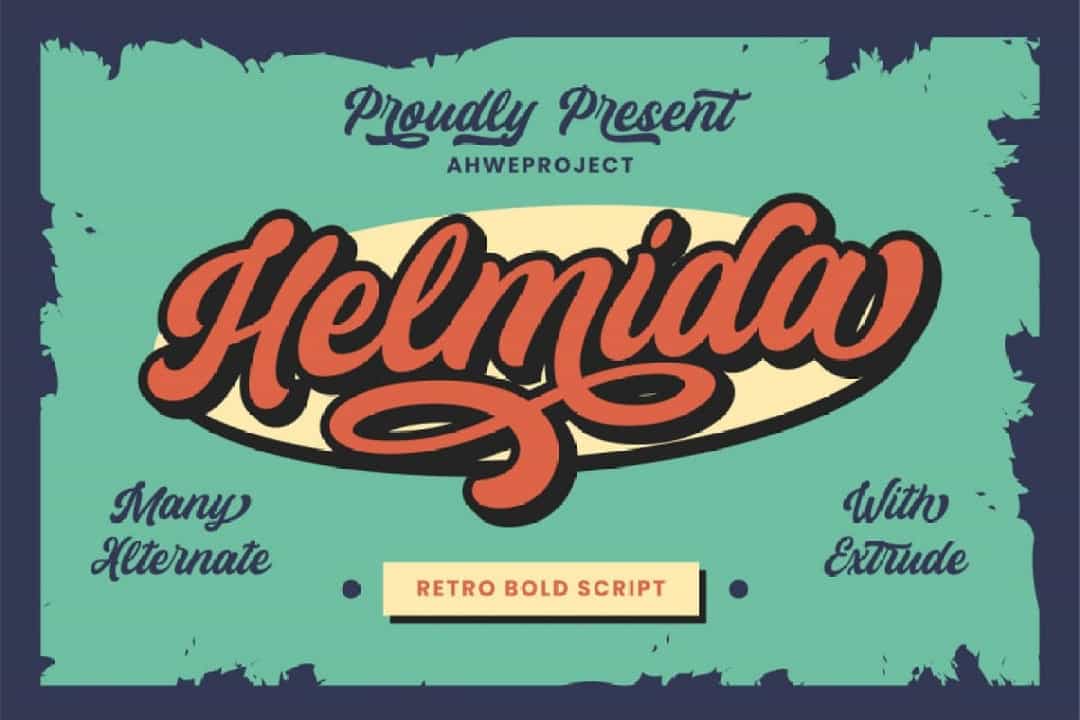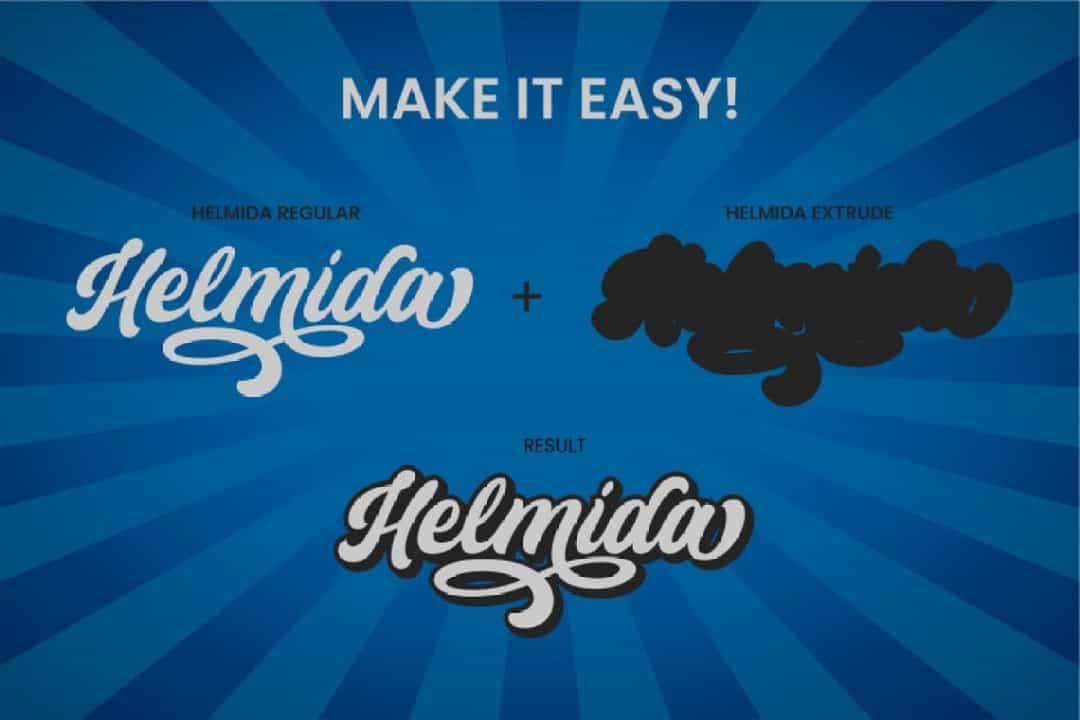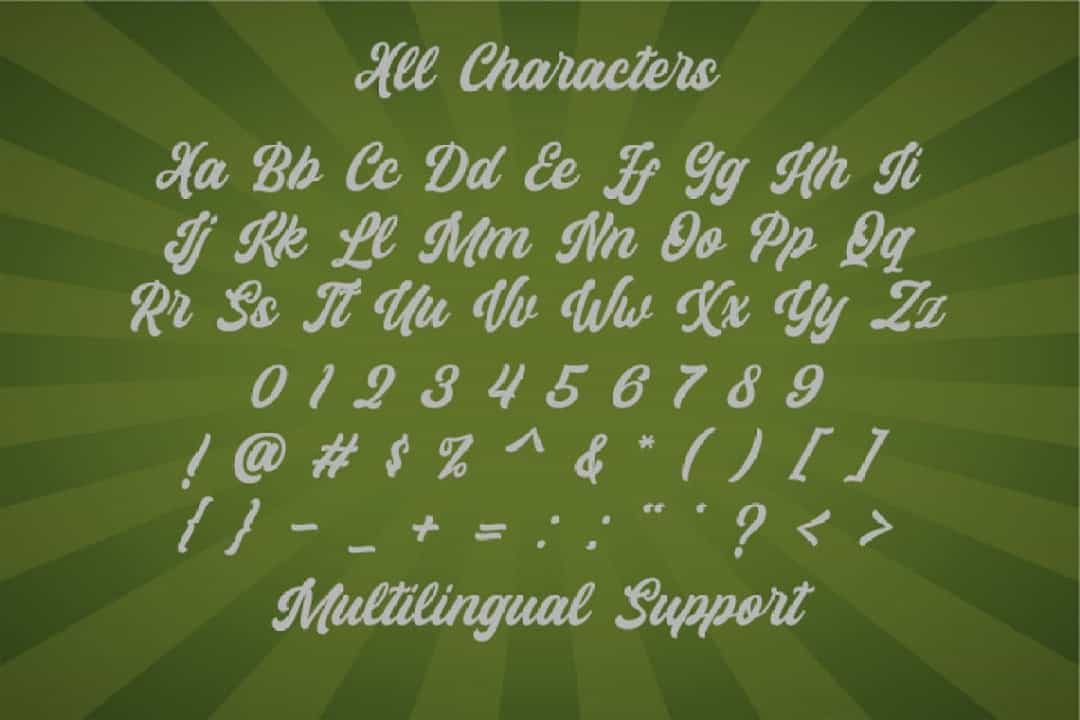
Discover Helmida Font, part of the Calligraphy Retro collection—a versatile and unique font perfect for adding a personal touch to your projects. Download it for free and enjoy crafting designs with style, from invitations to social media posts. This font is available exclusively for personal use, giving you the freedom to create without limits. Unlock your creativity with Helmida Font today!
Helmida is an eye-catching vintage script typeface. Be captivated by its striking design before using it to craft striking designs! PUA encoded, Helmida allows easy use of all its glyphs and swashes!